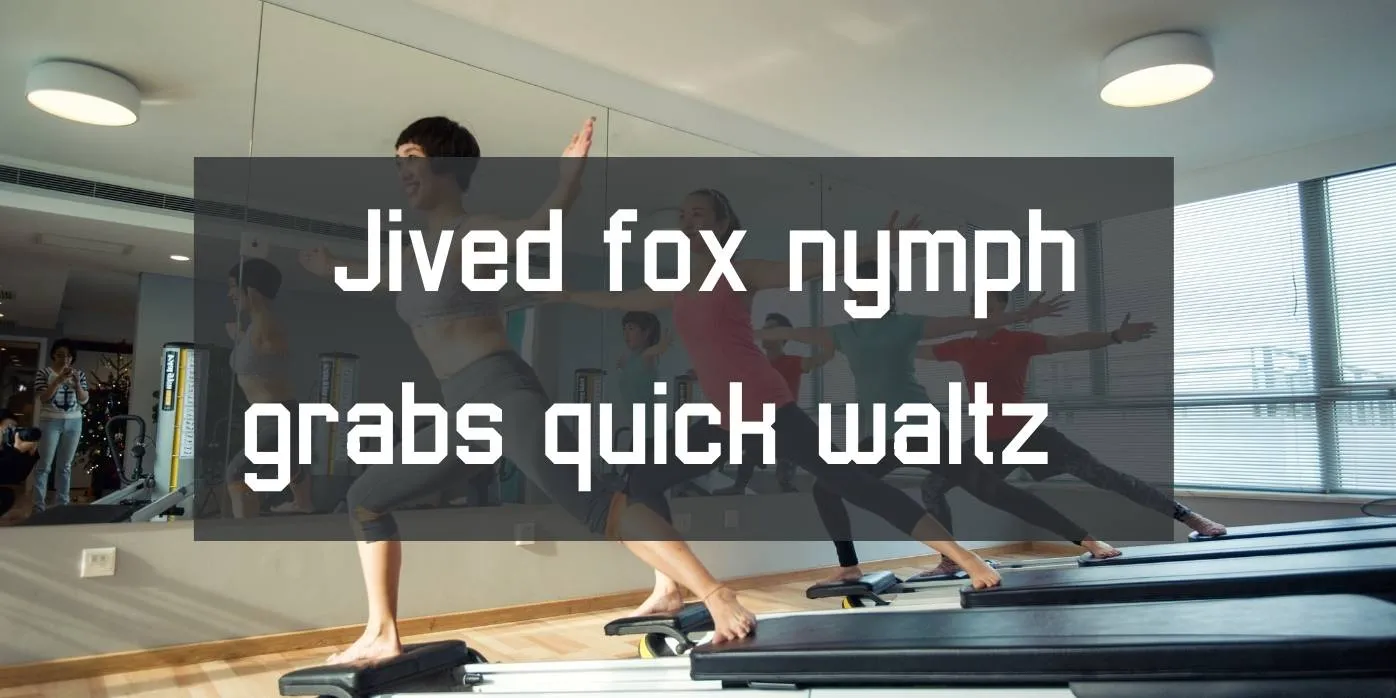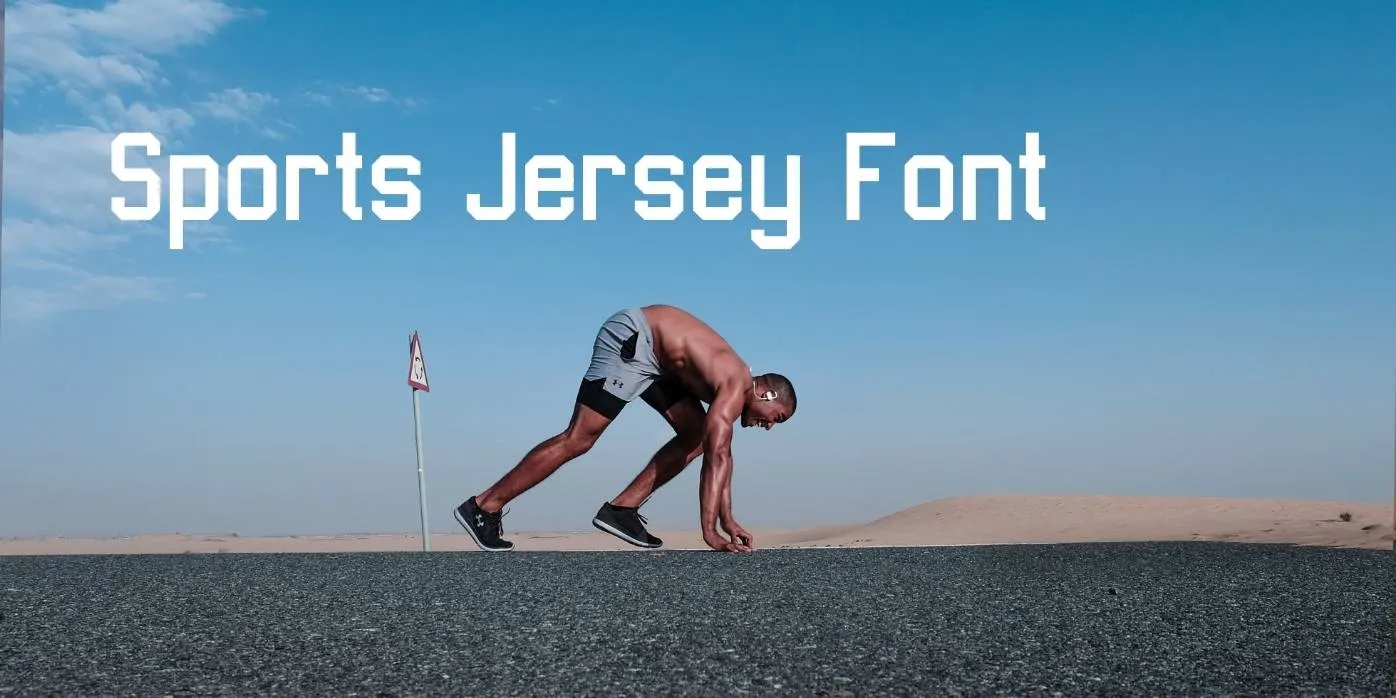
Sports Jersey Font
Sports Jersey font was designed and published by Arfurware. This awesome typeface belongs to the Display typeface. This cute font is available for instant designs and totally free download. This classy typeface comes in various unique Glyphs and has a standard Kerning.
Its special character and styles make the sports jersey font ideal for sports marketing, Printing, and logos. This classy typeface has keen and clean features which is the reason this font is most suitable for sports designs and related clothing brands. You can use its Copy and Paste function for your needs. This staggering Font Family comes in file Format which you can install on your Windows or Mac computer to use in programs like Photoshop, Word, PowerPoint, and Adobe Illustrator.